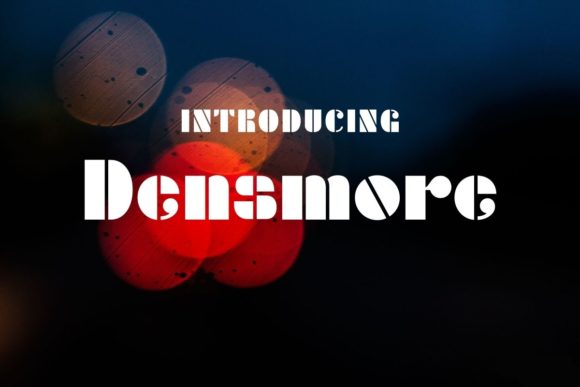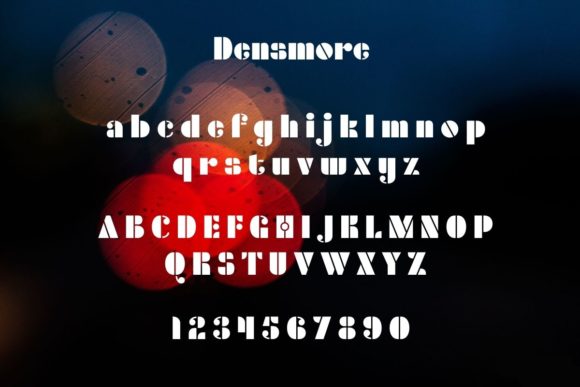
About Densmore Font
Densmore is an art deco-inspired display font with a stencil-like appearance. Itsβ rounded and bold letters will complement your retro designs.